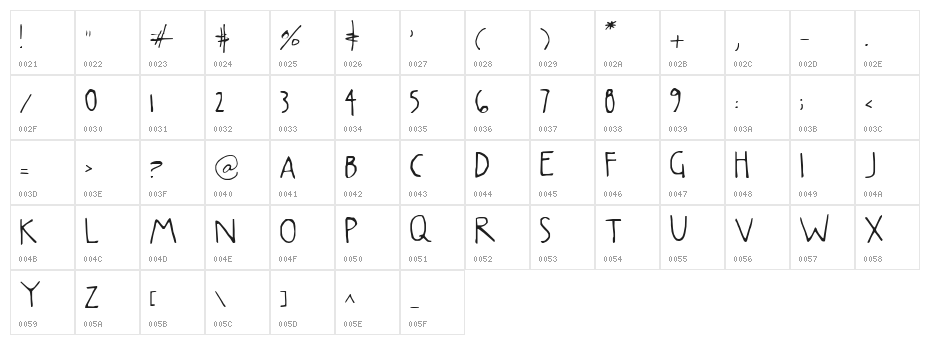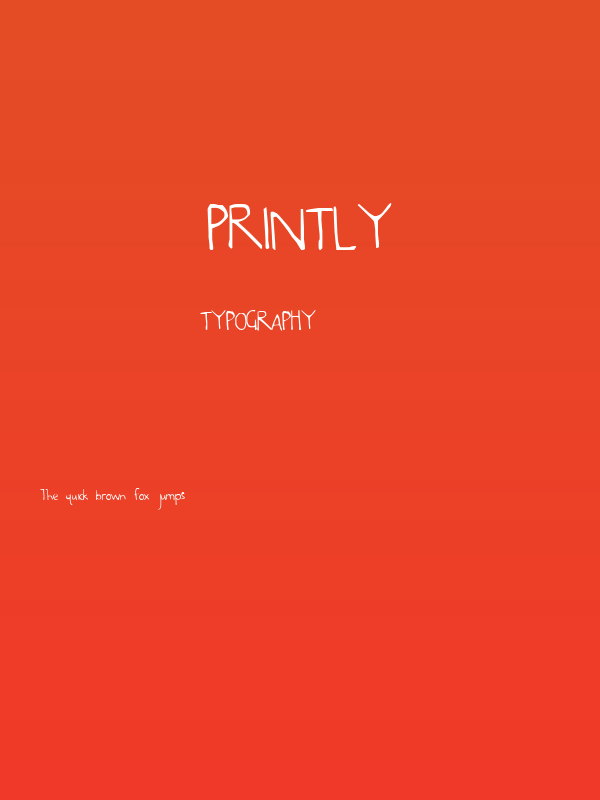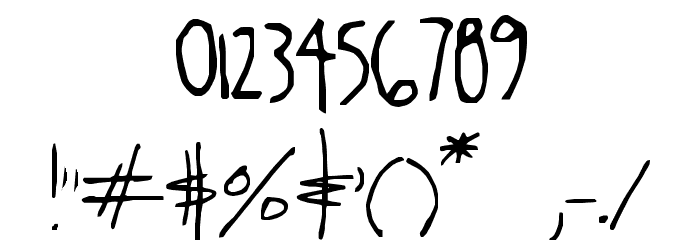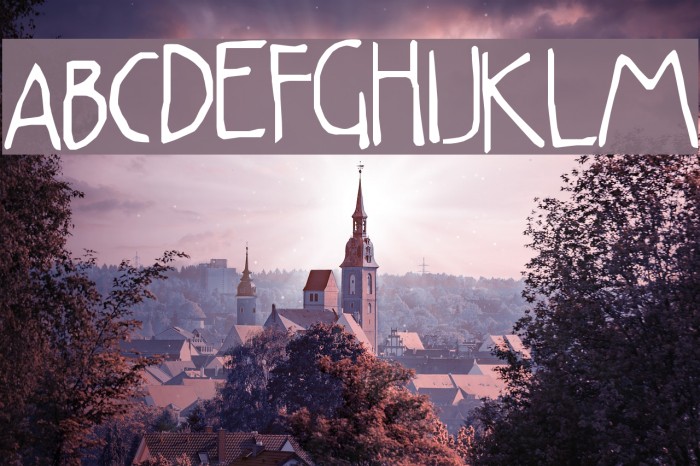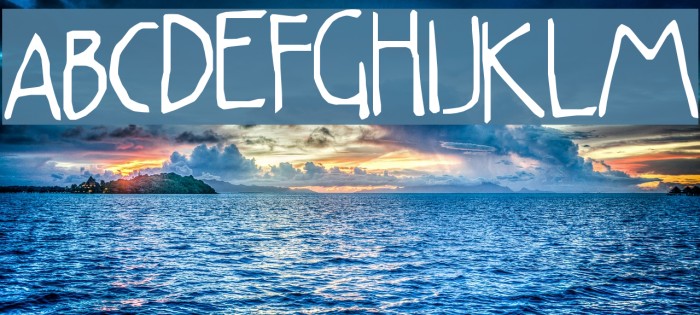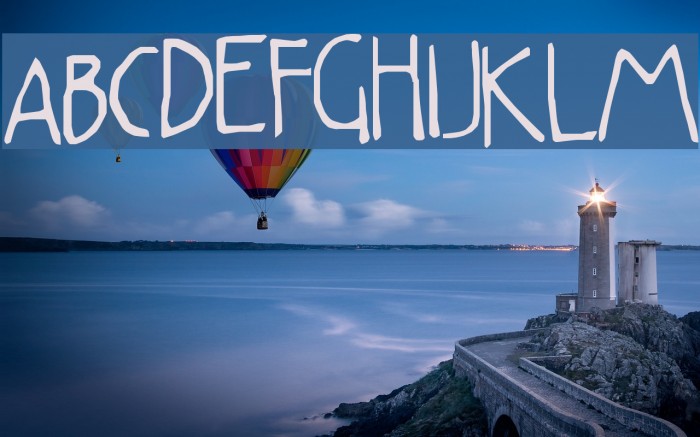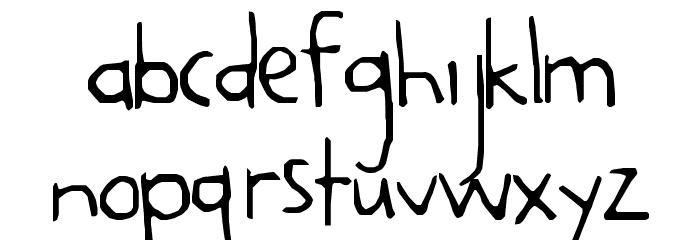
Printly Font
Printly Description
This font features a playful and informal handwritten style, characterized by its uneven strokes and casual appearance. The letters are slightly irregular, giving it a personal and approachable feel. The uppercase and lowercase letters maintain a consistent style, with rounded edges and a natural flow. Numbers and special characters are designed to match the overall aesthetic, adding to its cohesive look. This font is ideal for projects that require a touch of whimsy and creativity, such as children's books, greeting cards, or casual invitations.